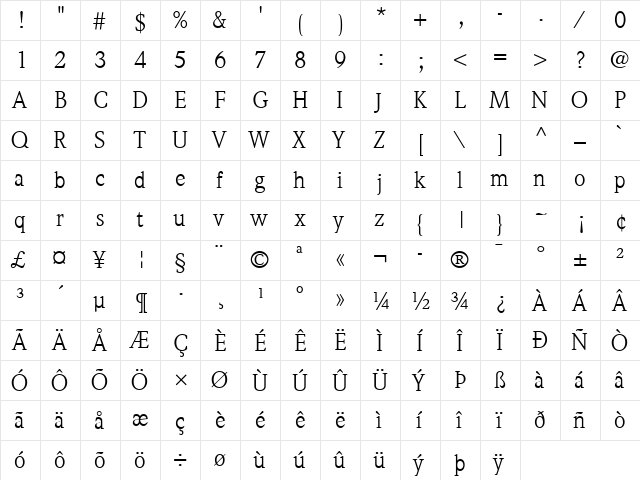
Weidemann LT Book Regular
Design Context for Weidemann LT Book Typeface
Weidemann LT Book offers clean, dependable letterforms without strong stylistic allegiance, making it a practical choice for designers who need flexibility. Its slender proportions lend an understated elegance to any composition.